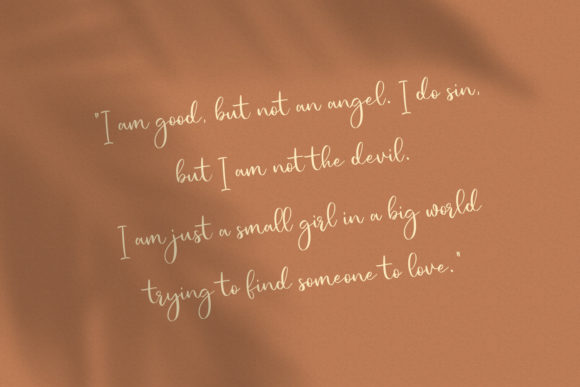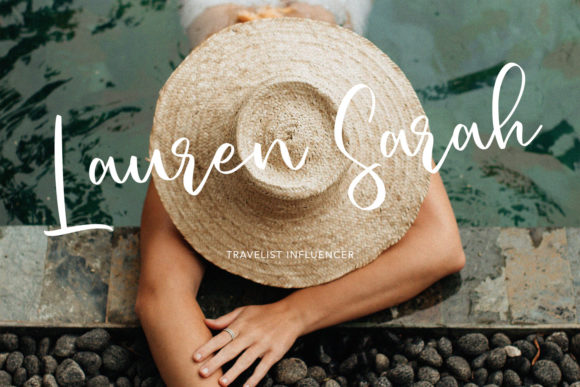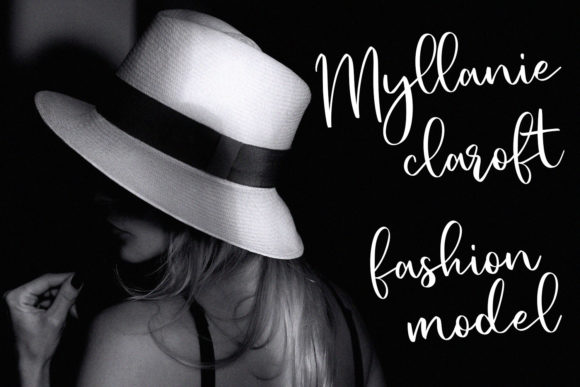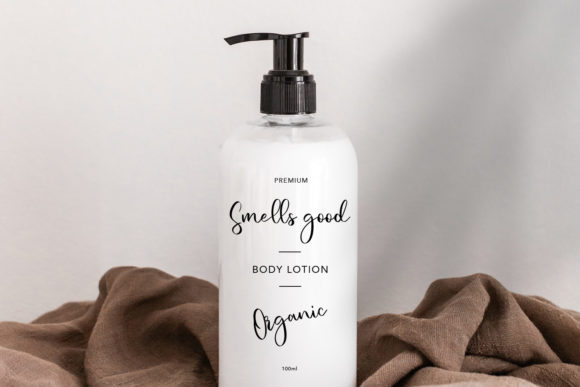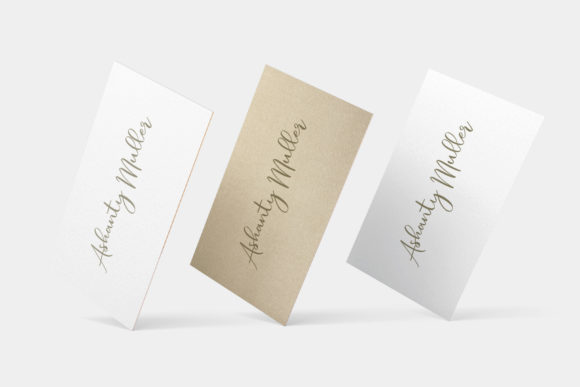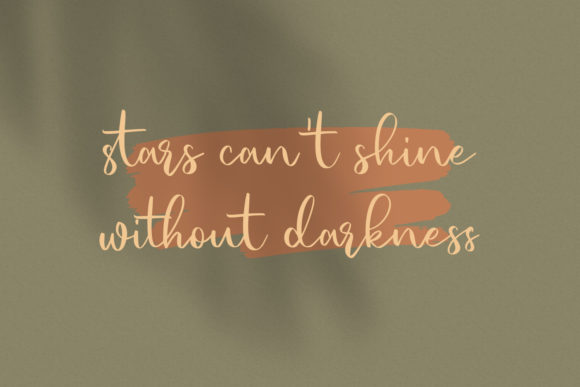
Introduction to Mylofist Font
Mylofist is a fashionable, sweet and cursive script font.
Not too thin and not too thick, balanced and varied, this font was designed to enhance the beauty of your projects .
Key Features of Mylofist Font
Why Choose Mylofist Font?
Mylofist Font offers exceptional quality and versatility, making it a valuable addition to your design toolkit. Whether you’re creating for personal projects or commercial use, Mylofist Font delivers professional results.